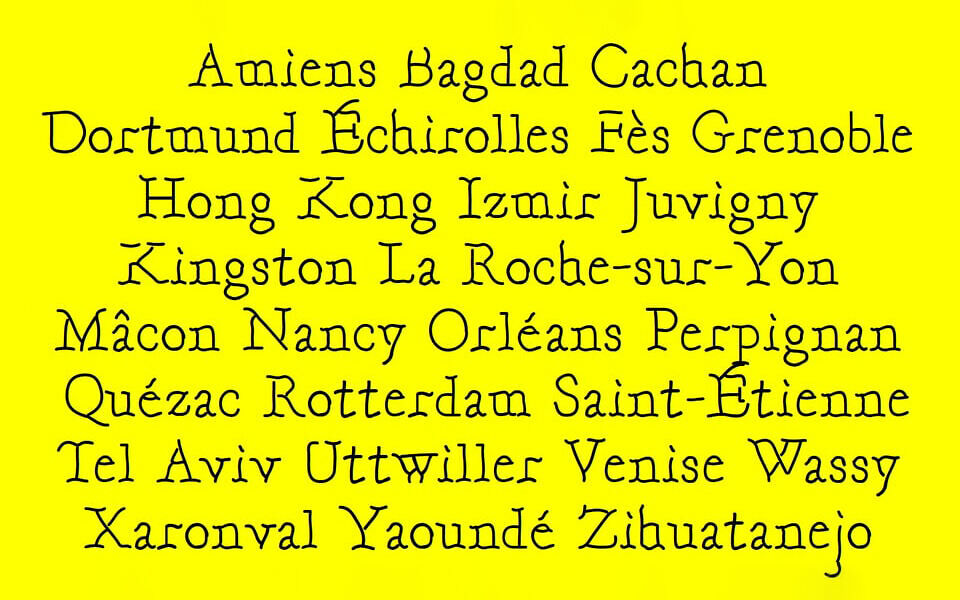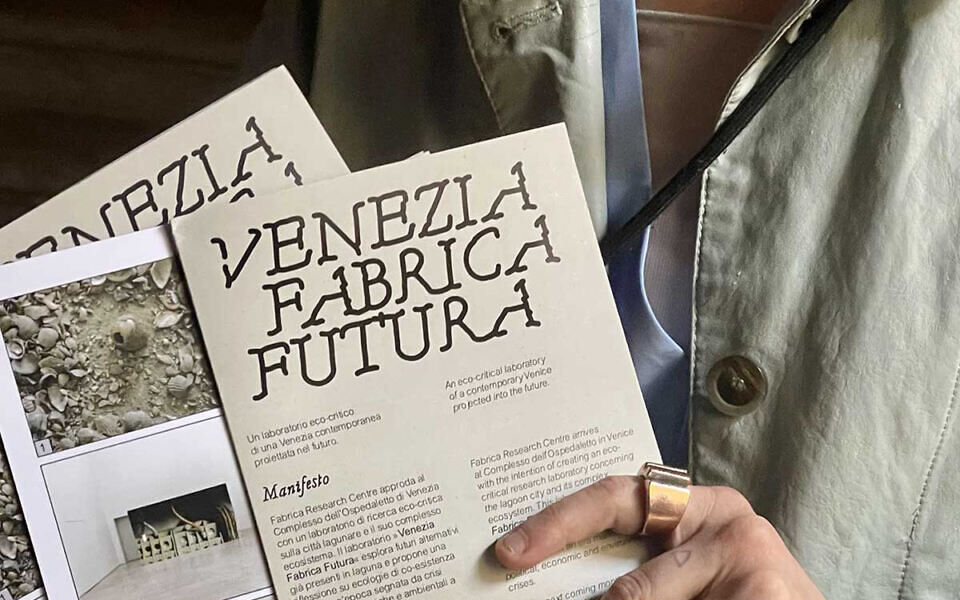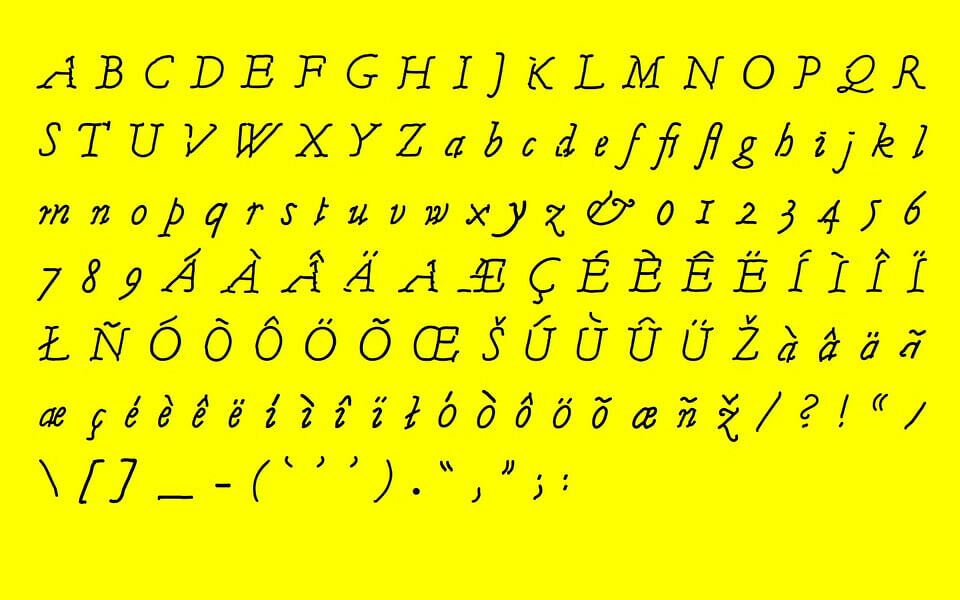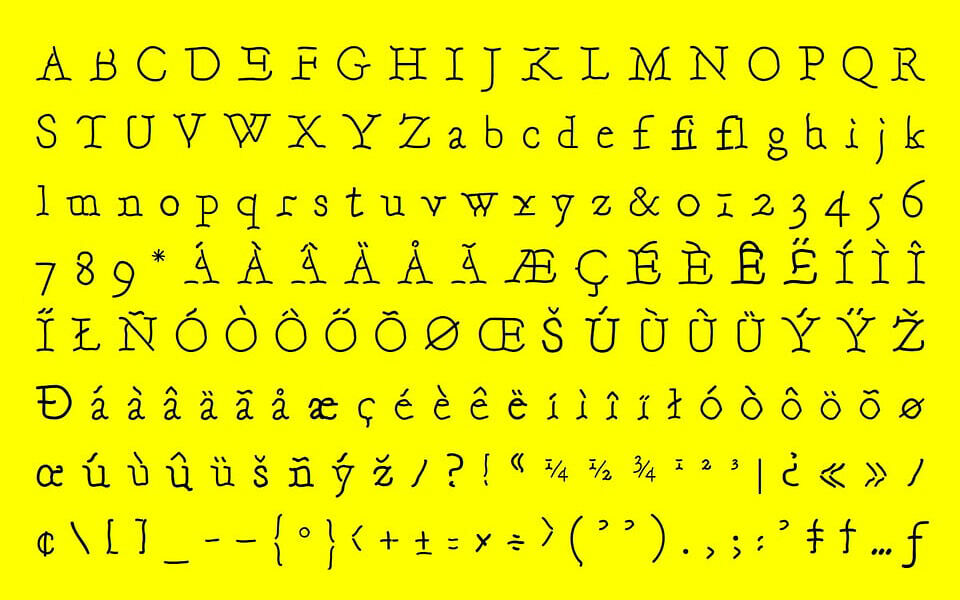
Garamon(d/t) Font, named after 16th-century French engraver Claude Garamond (often spelled Garamont), is a classic old-style serif typeface renowned for its elegance and readability.
Its design, rooted in Roman types cut by Jean Jannon in 1615 and inspired by Francesco Griffo’s 1495 work for Aldus Manutius, features a small-eyed ‘e’, a sharp-hooked ‘a’, and splayed ‘M’ with outward serifs.
The italics draw from Robert Granjon’s 1557 designs. Ideal for books and body text, Garamond offers a timeless, refined aesthetic with a low x-height, making it a favorite for print.